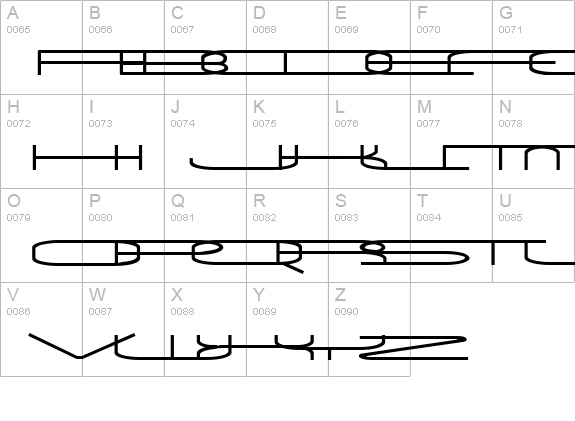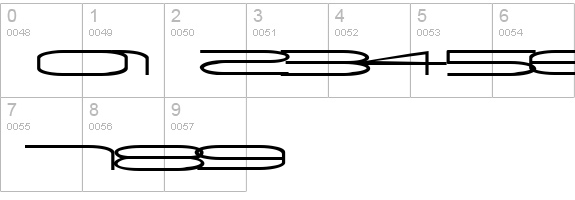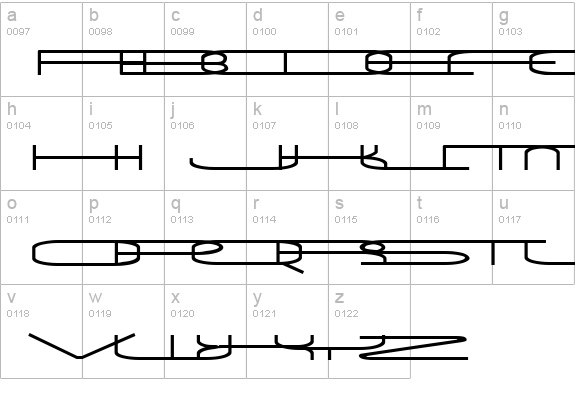
Univox Font Details
Univox font is a modern and versatile typeface that combines elegance with readability. Its clean lines and contemporary style make it perfect for a wide range of design projects, from branding to editorial design. The sleek and sophisticated look of Univox font will add a touch of class to any project. What's even better is that Univox font is completely free to download at FontsMarket.com. This means you can access this high-quality typeface without having to spend a dime. Don't miss out on the opportunity to enhance your designs with the timeless appeal of Univox font. Download it today and see the difference it can make in your creative projects.